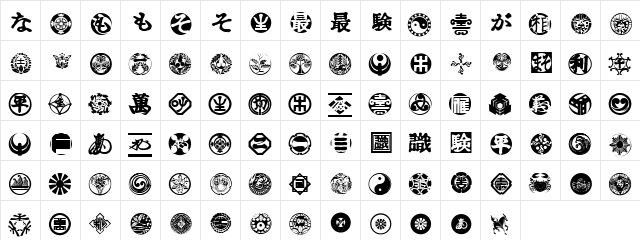
Kurusu Medium Font Preview
Kurusu Medium
Kurusu Medium Font Details
Design Context for Kurusu Typeface
Kurusu is a composed and adaptable typeface that performs quietly and consistently across a wide range of design contexts.